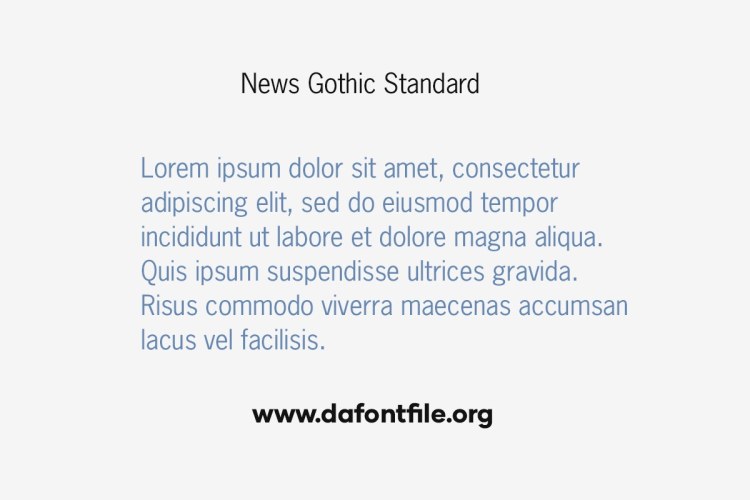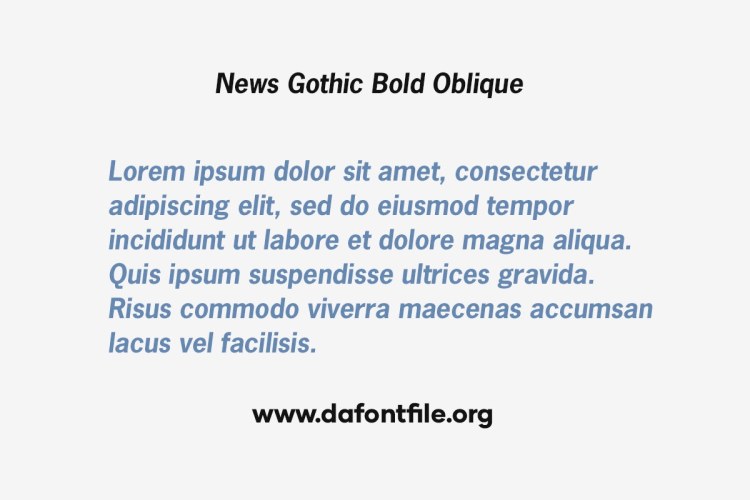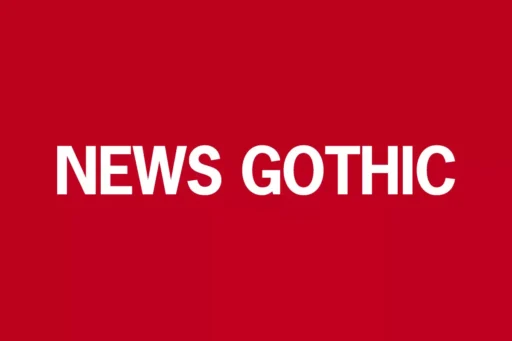
News Gothic Font
News Gothic is a simple and clean, geometric sans-serif font family that has enjoyed timeless popularity within the domain of typography. First created by Morris Fuller…
News Gothic is a simple and clean, geometric sans-serif font family that has enjoyed timeless popularity within the domain of typography. First created by Morris Fuller Benton in 1908, this font comprises open letter creation, clean lines and above all, the ease of reading, which has made it a classic font in the world of graphic designing. News Gothic is a highly versatile and timeless font that has been used in newspapers, magazines, advertisements, and various digital media. This article explores the background, characteristics, uses and longevity of News Gothic to stress its importance within the sphere of graphic design.
Morris Fuller Benton designed this font in the year 1908 for the American Type Founders Company. Benton was an active typeface designer and some of his works include the American Type Founders library such as the Franklin Gothic and Century Schoolbook. News Gothic was designed as a lighter counterpart to Franklin Gothic – another sans-serif typeface of the same period.
The original News Gothic family consisted of two weights: The font style used is regular and bold. It has grown over time to encompass more weights and styles to suit the requirements of designers and typographers. It became widely used in the middle of the twentieth century in correlation with the modernist movement and the need for clear and concise fonts. The plainness and flexibility of News Gothic, therefore, recommended it to newspapers, magazines, advertising, and other forms of printed matter.
News Gothic has a rather simple and understated design with a high level of geometricity and rather open forms of letters. The typeface is classified under the grotesque sans-serif group, which suggests that it has some resemblance to other early sans-serif fonts, including Franklin Gothic and Akzidenz-Grotesk. News Gothic has more narrowly defined letterforms, which means that it takes up less space on a page, which is very important for newspapers and magazines.
Another characteristic of News Gothic is the double story a and g, which is typical for many grotesque sans-serifs. The typeface also has a square-tipped terminal at the top of the lowercase ‘t’ and a characteristic ‘Q’ with a tail that moves beyond the bowl. These small characteristics make News Gothic what it is and enhance its readability.
News Gothic is perhaps one of the most utilized fonts in a variety of design executions due to its flexibility. Its simplicity and lack of distractions make it suitable for use in headlines, body texts, and captions. The font is also highly readable, even at smaller sizes, which is why it has become widely used in newspapers and magazines.
News Gothic not only finds its application in the printed media but is also used widely in advertising, branding, and packaging. It is versatile and can be used on various products and services due to its agelessness, and its versatility has made designers apply it in digital media such as website headers, user interfaces, and mobile apps.
Several typefaces are similar to News Gothic in design and usage, as well as their history. Some notable examples include:
Franklin Gothic: Created by Morris Fuller Benton, Franklin Gothic is slightly more robust and a sans serif font than News Gothic.
Alternate Gothic: Alternate Gothic is another creation of Morris Fuller Benton, which is a condensed version of News Gothic that is suitable for headlines and display purposes.
Helvetica: Even though not related to News Gothic, Helvetica has a similar geometric style that is suitable in similar contexts.
Univers: Adrian Frutiger designed Univers, which is a very universal sans-serif font with an extensive selection of weights and styles.
News Gothic is a sans serif font family by Morris Fuller Benton in 1908.
It is suitable for use in newspapers, magazines, advertisements, brands, packaging, and any digital platforms.
Although It is not a free font, there are several free fonts that have a similar appearance. For instance, there are “News Cycle” and “League Gothic. “
Designed by the same designer, Morris Fuller Benton, News Gothic is a lighter and finer type of sans serif font than Franklin Gothic, which is heavier and stronger.
Where News Gothic Font works best
News Gothic Font stays legible at small sizes, which makes it a strong choice for navigation, buttons and dashboards in web design and app interfaces.
Clean sans serifs like News Gothic Font are the default language of SaaS, fintech and product branding.